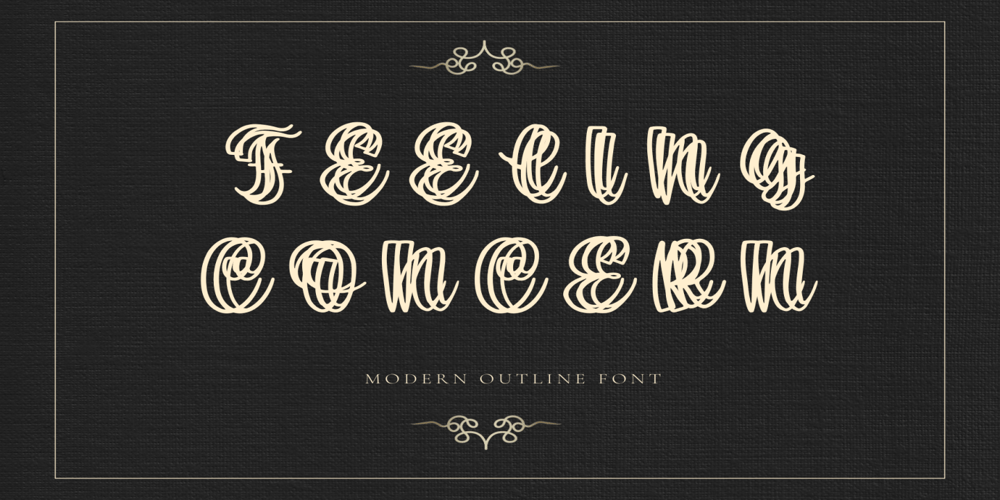
Feeling Concern Font Family was designed by Gregory Grey and published by Adita Fonts. Feeling Concern contains 1 styles and family package options. Are you looking for a cute playful font? Do you want to create something that stands out and inspires creativity, imagination, and endless fun? Wait no more, here is the best choice. Feeling Concern – a Girly Outline Font inspired by a cute script style. This font is perfect for a design that makes it more attractive and playful. It was made with a very good level of aesthetics, making this font suitable for book covers, posters, packaging, merchandise, logotypes, and much more.